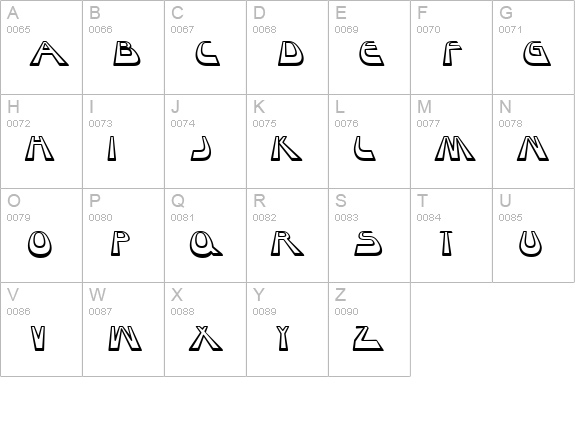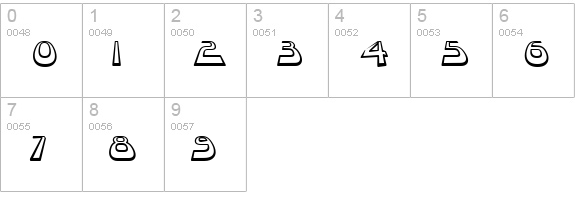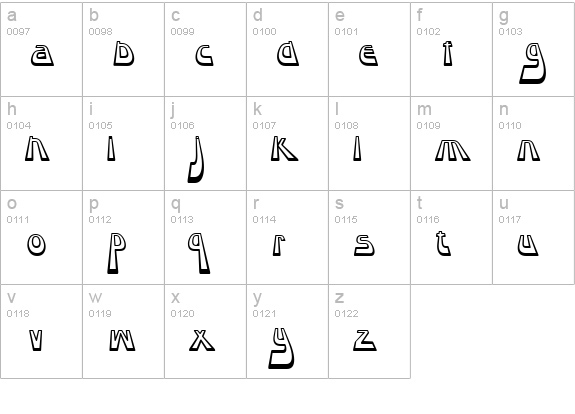
Layaway font is a stunning display typeface that effortlessly captures attention with its elegant and modern design. This font is the perfect choice for projects that require a touch of sophistication and style. With its sleek lines and smooth curves, Layaway font exudes a sense of professionalism and creativity. What makes Layaway font even more appealing is that it is free to download at FontsMarket.com. Yes, you read that right! This remarkable font is freely available for anyone who wants to add a touch of class to their designs without breaking the bank. Whether you are a graphic designer, a web developer, or simply a creative individual looking to enhance your projects, Layaway font is the ideal solution. With its versatility and legibility, Layaway font can be used for a wide range of design purposes. From logos and branding materials to website headers and social media graphics, this font will elevate your creations to new heights. Its clean and clear letterforms ensure that your message is effortlessly communicated to your audience. Not only does Layaway font offer exceptional aesthetics, but it is also incredibly easy to work with. Its well-balanced proportions and extensive character set guarantee seamless integration into any project. Plus, with its multiple weights and styles, you have the freedom to experiment and find the perfect fit for your design vision. So why wait? Download Layaway font for free at FontsMarket.com and unlock a world of possibilities for your creative endeavors. Don't miss out on this incredible opportunity to enhance your designs without spending a dime. Experience the beauty and versatility of Layaway font today and watch your projects come to life in ways you never imagined.